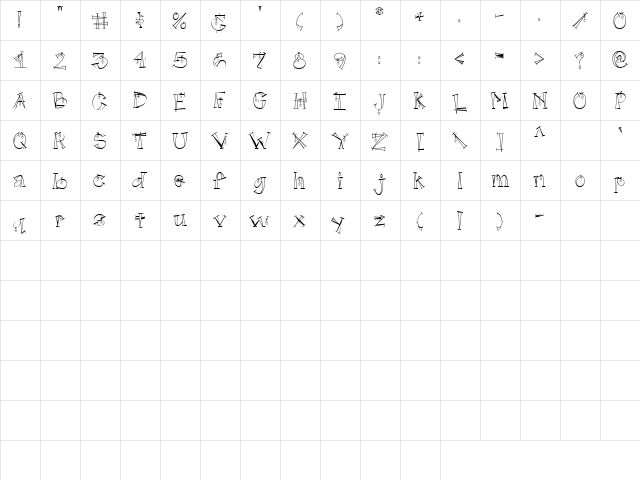
CK Hearts Regular
Design Context for CK Hearts Typeface
CK Hearts is a composed and adaptable typeface that performs quietly and consistently across a wide range of design contexts.